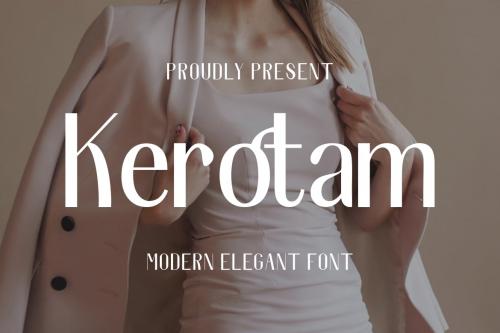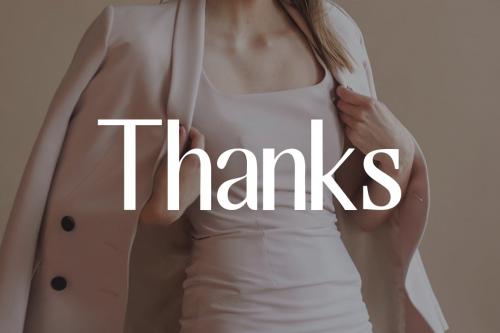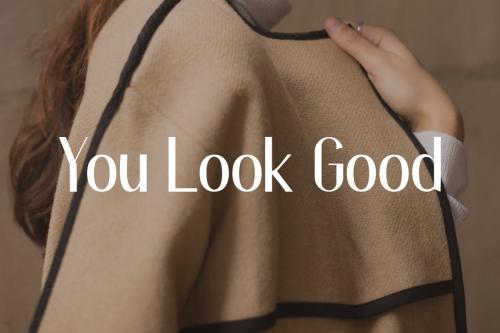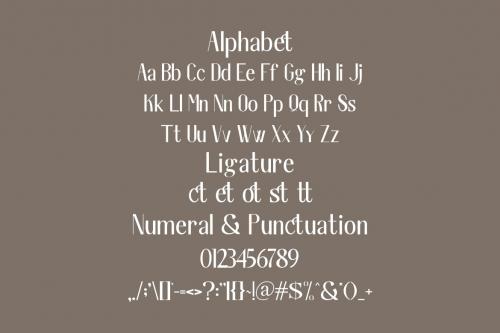
Kerotam -Elegant Font
Proudly present our new product **Kerotam Font**
**Kerotam Font** is a modern and authentic font. Perfect for both professional and branding needs of a product. This font is suitable for any branding project like quotes, logo, blog header, poster, banding, letter, invitation, stationery, etc... Designed as a versatile and flexible that can be used on a range of projects and mediums. outstanding in a wide range of contexts.
Uppercase